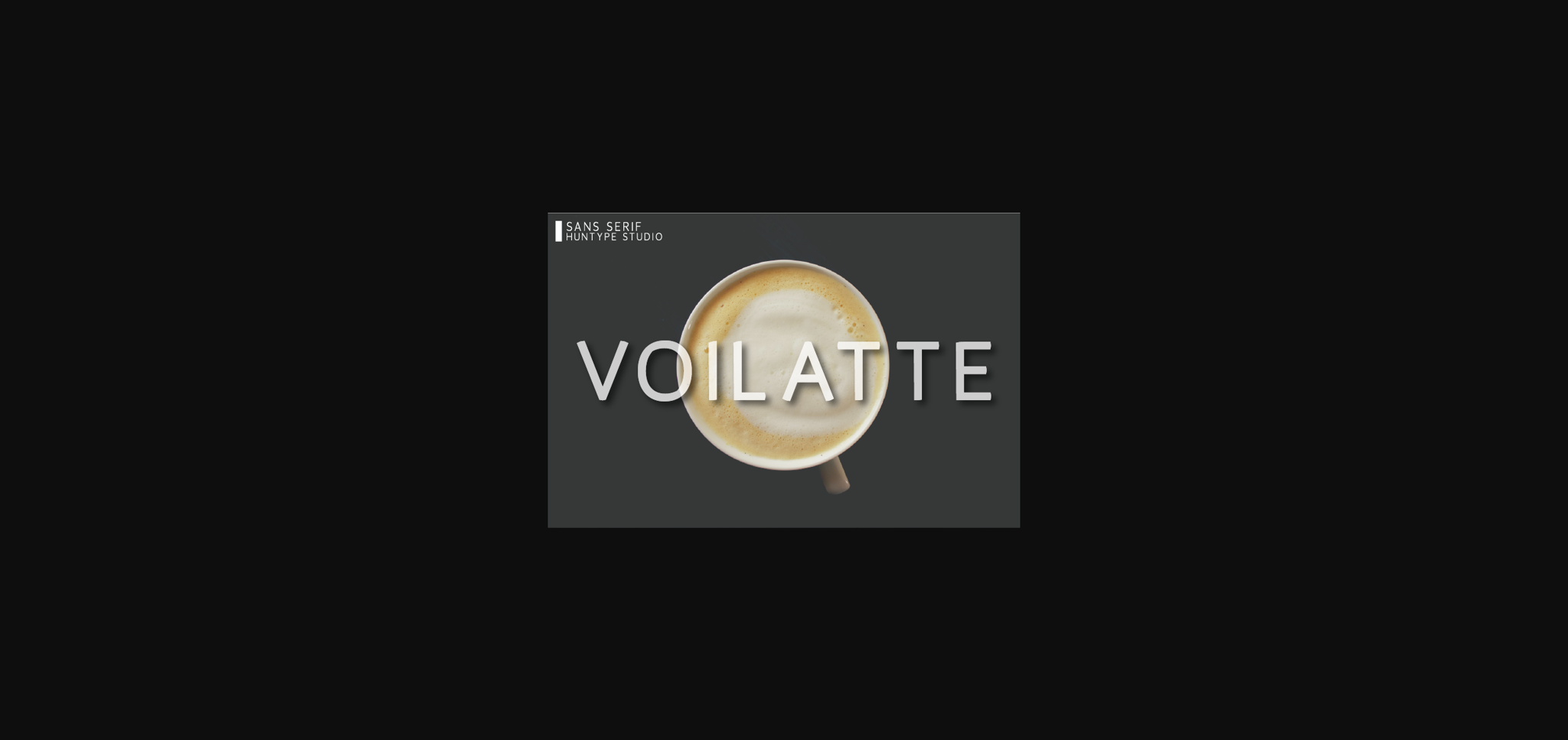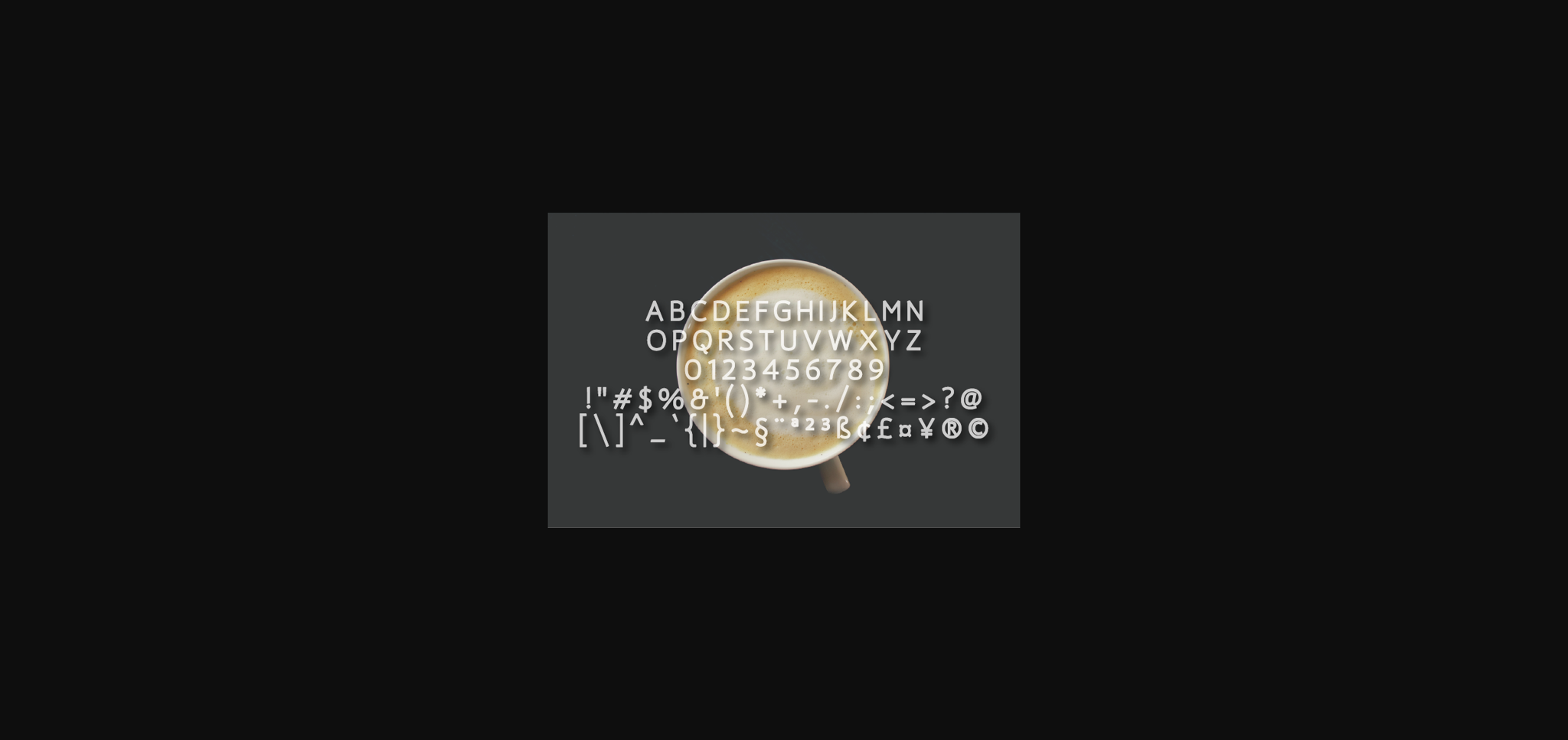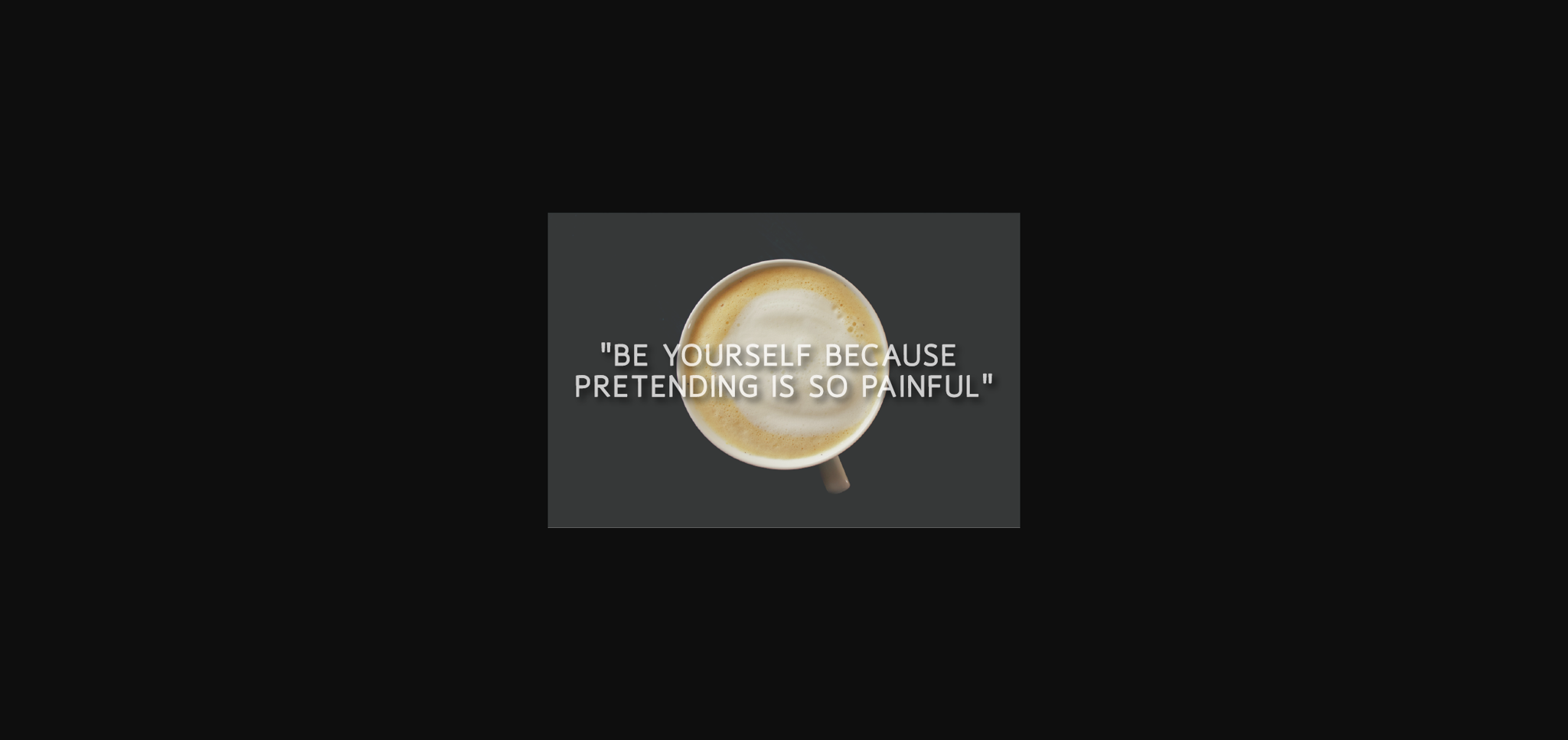
About Voilatte Font
Voilatte is a fancy and contemporary sans serif font. It will look particularly adept when used in logos, branding, packaging design, and much more. This masterfully designed typeface is a true must-have.